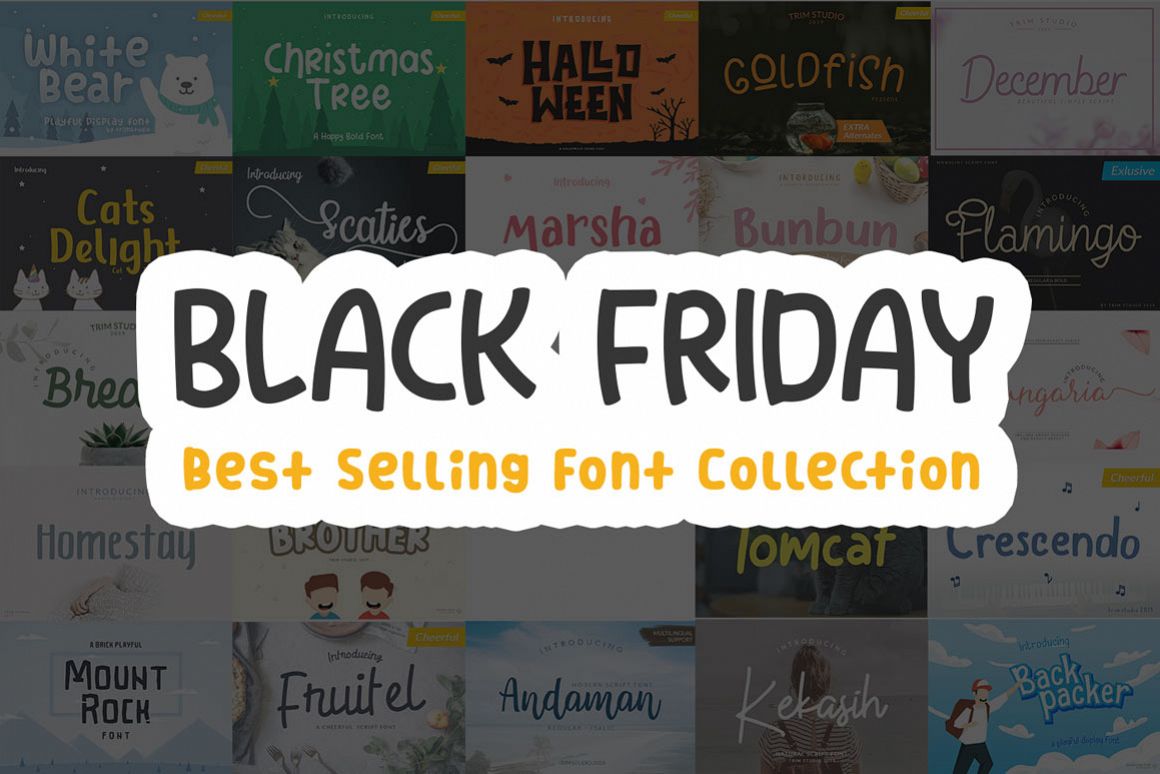
Get All Your Favourite Fonts For your Memorable Event, kids, school, art supply, invitation and many moore,
Fonts Collection :
• White Bear
• Christmas Tree
• Halloween
• Cats Delight
• Scaties
• Marsha
• Backpacker
• Mountrock
• Breath
• Brother
• Goldfish
• Homestay
• Crescendo
• Fruitel
• Bunbun
• Flamingo
• Hungaria
• Tomcat
• Kekasih
• December
• Andaman
• Specialist
• Square